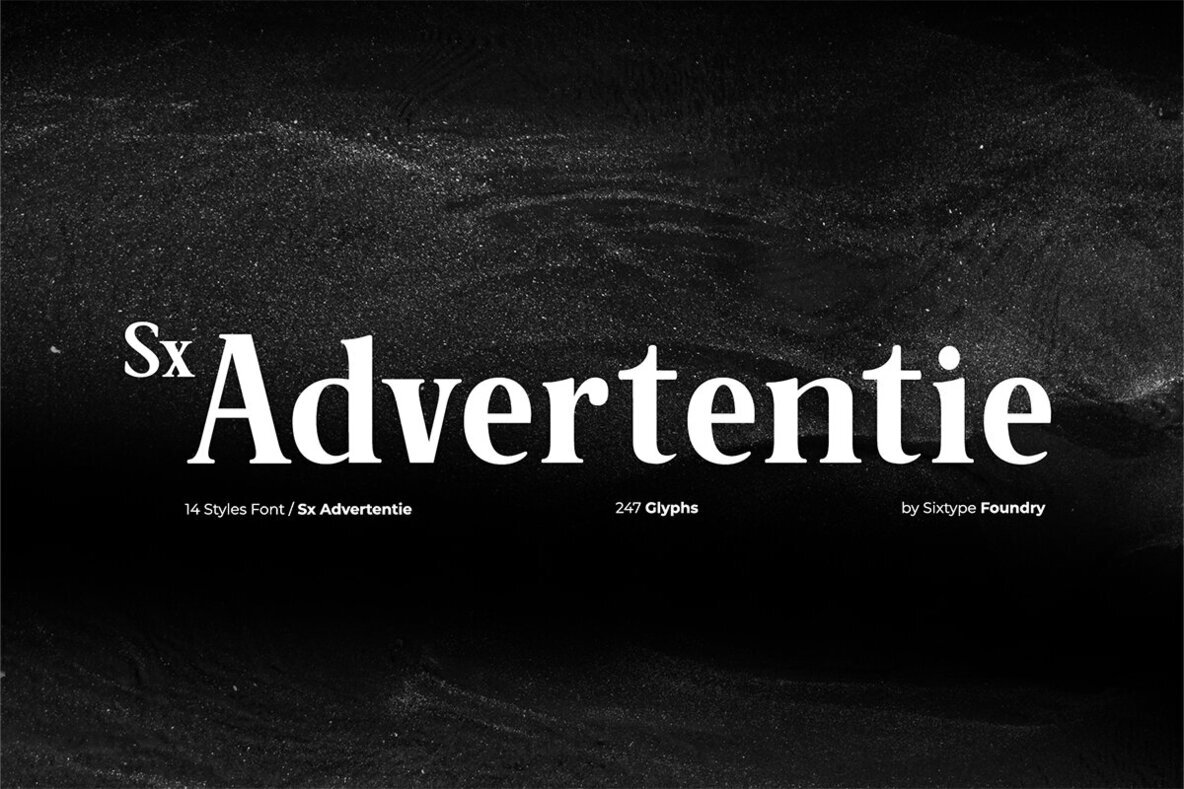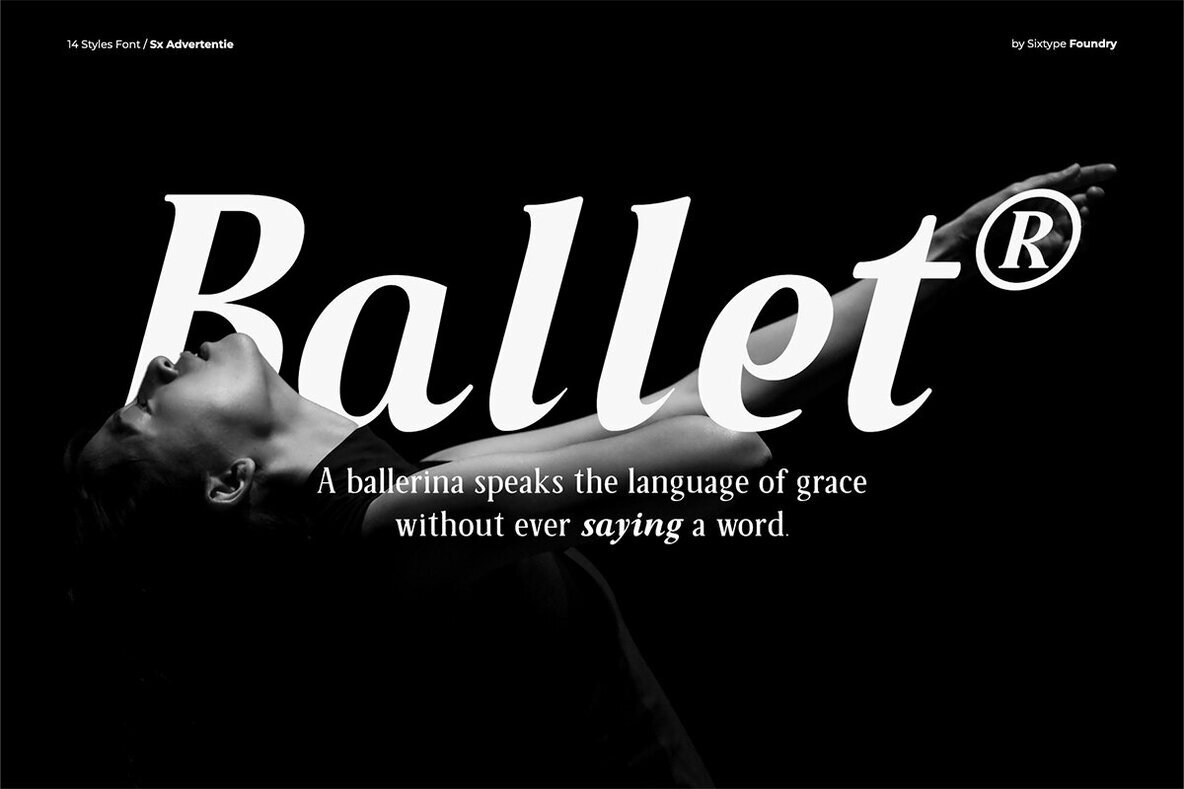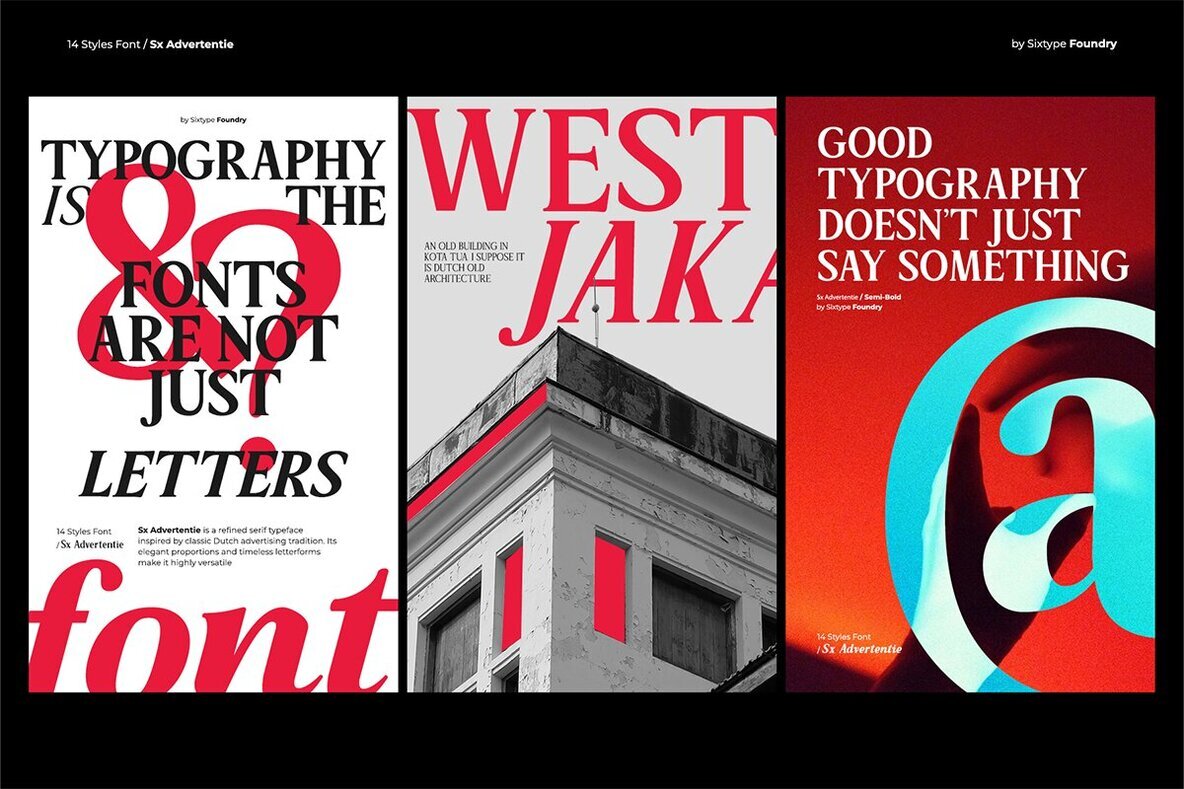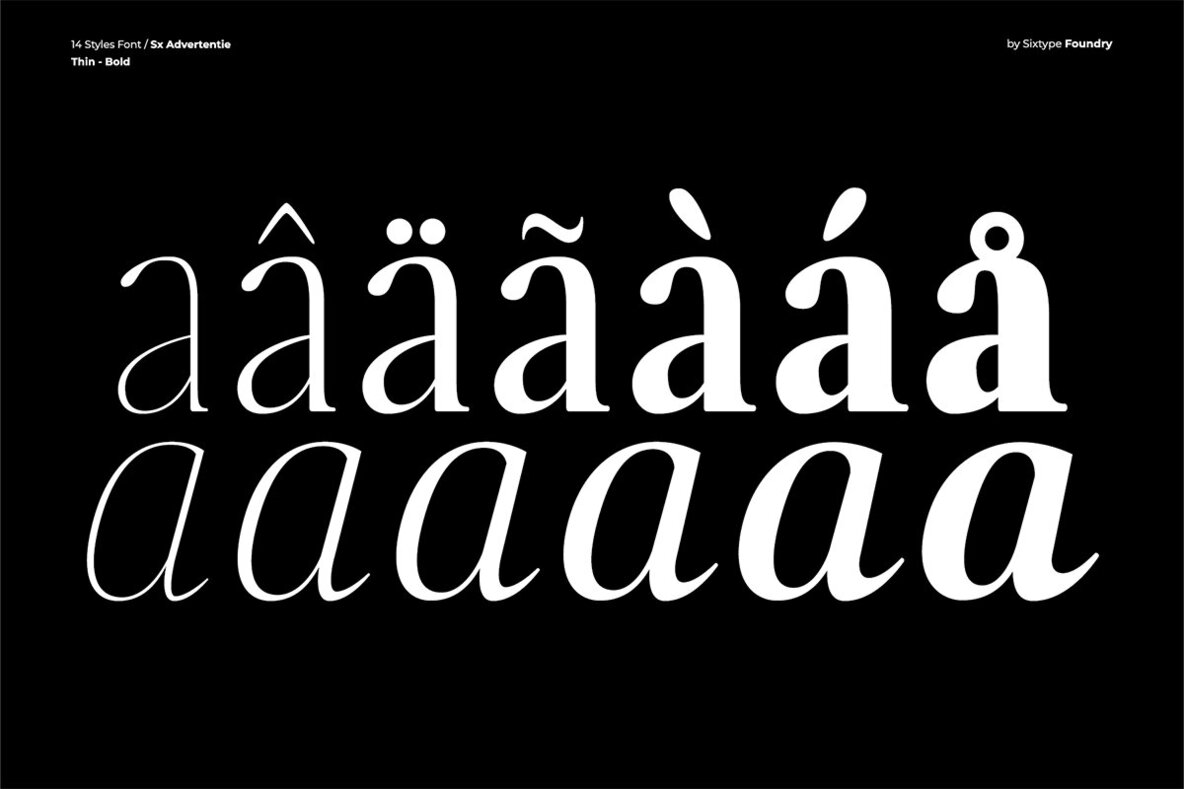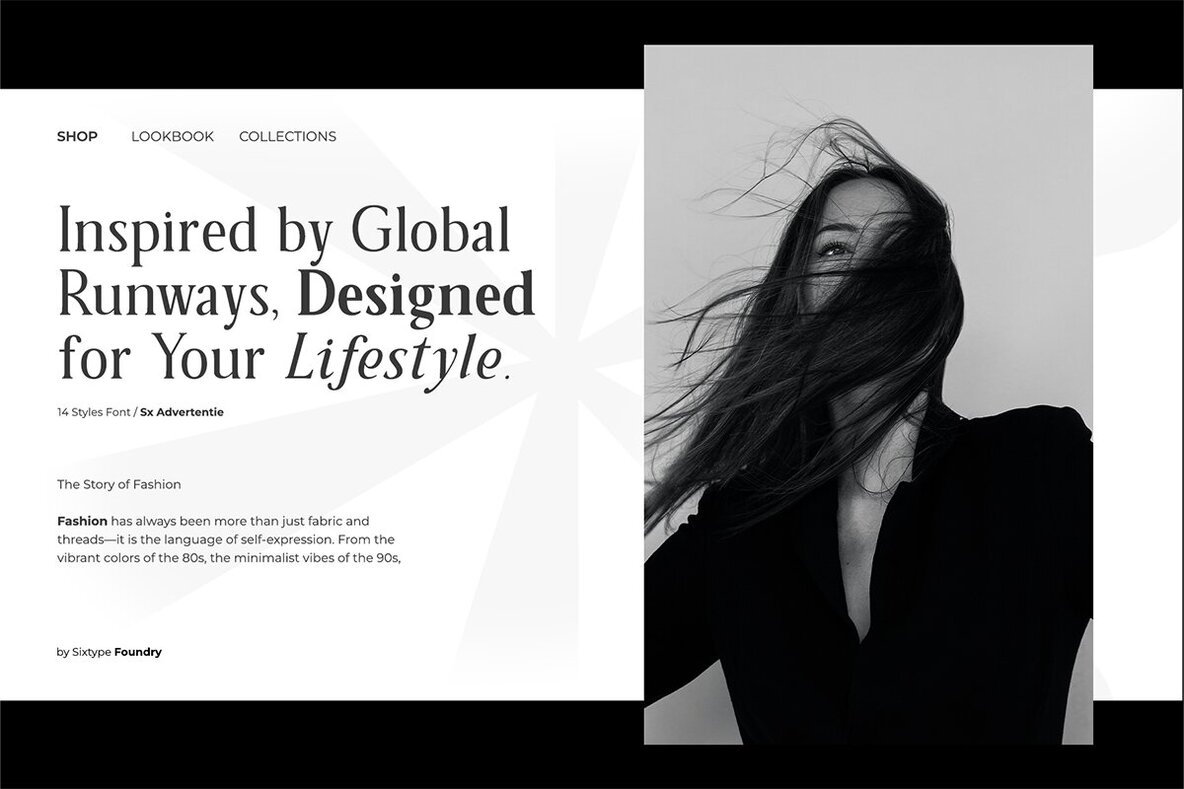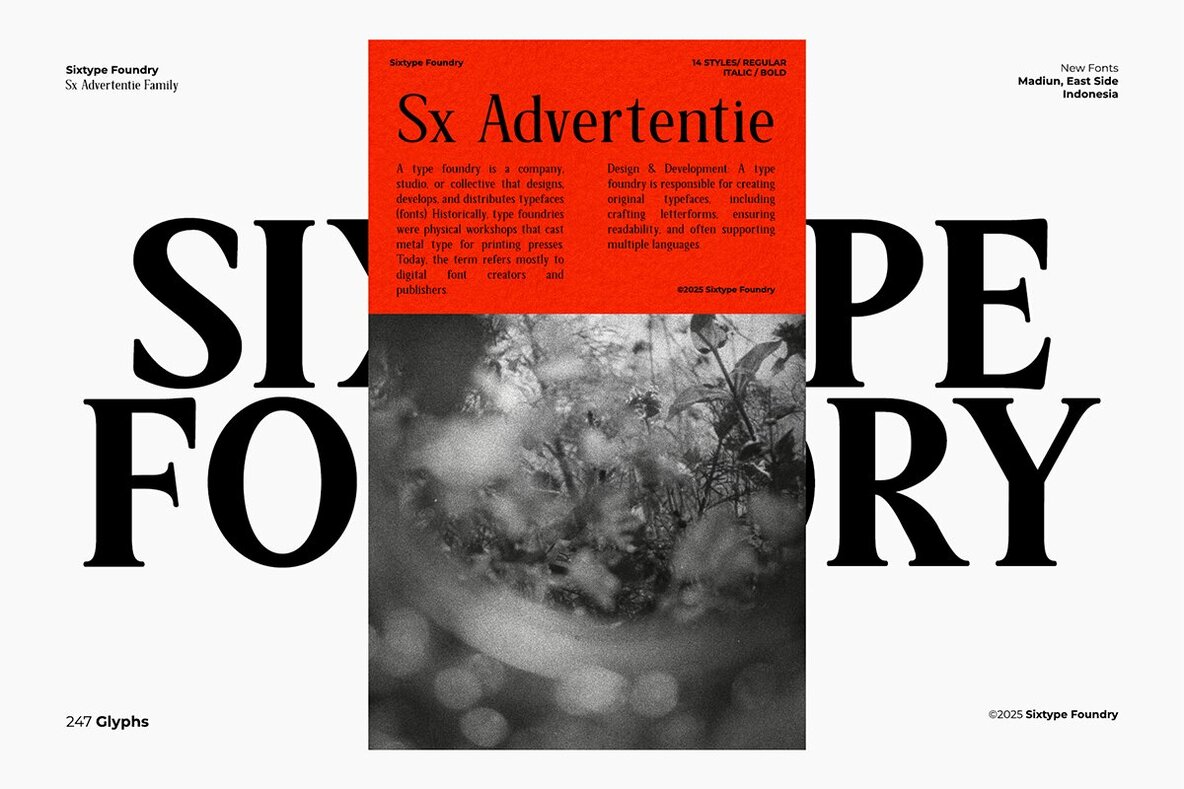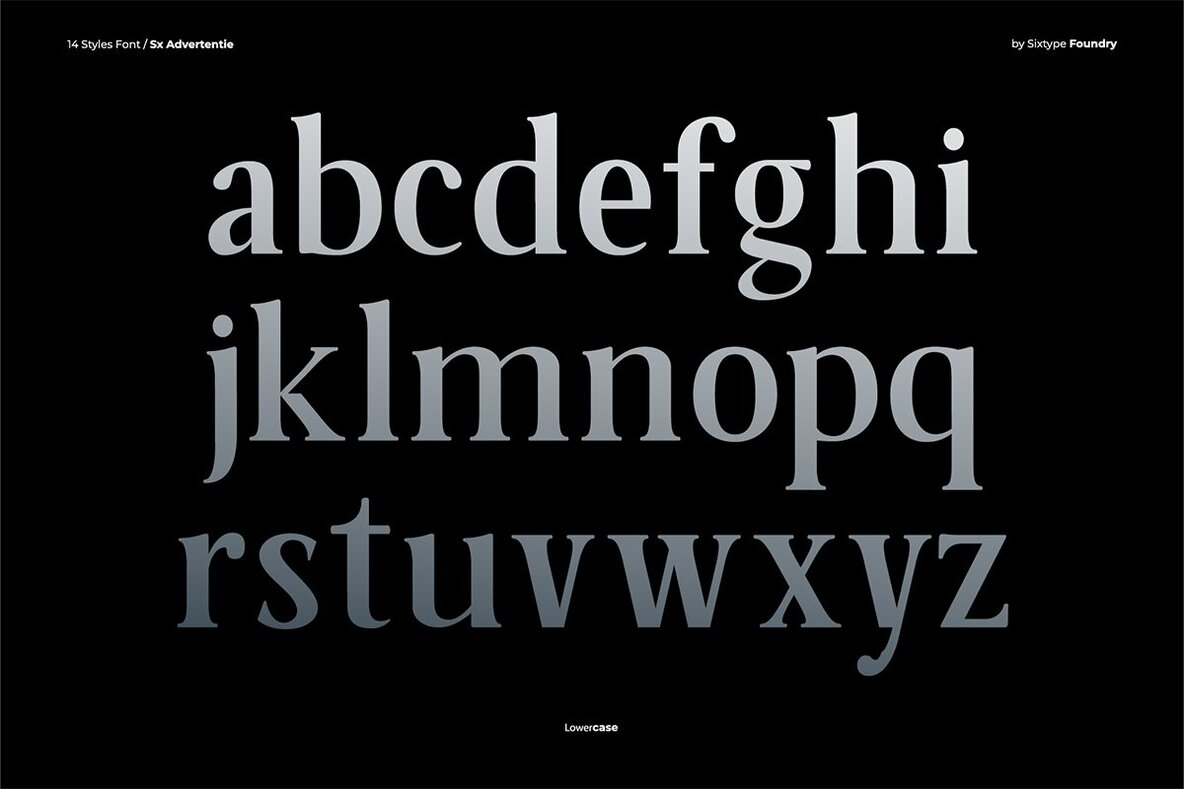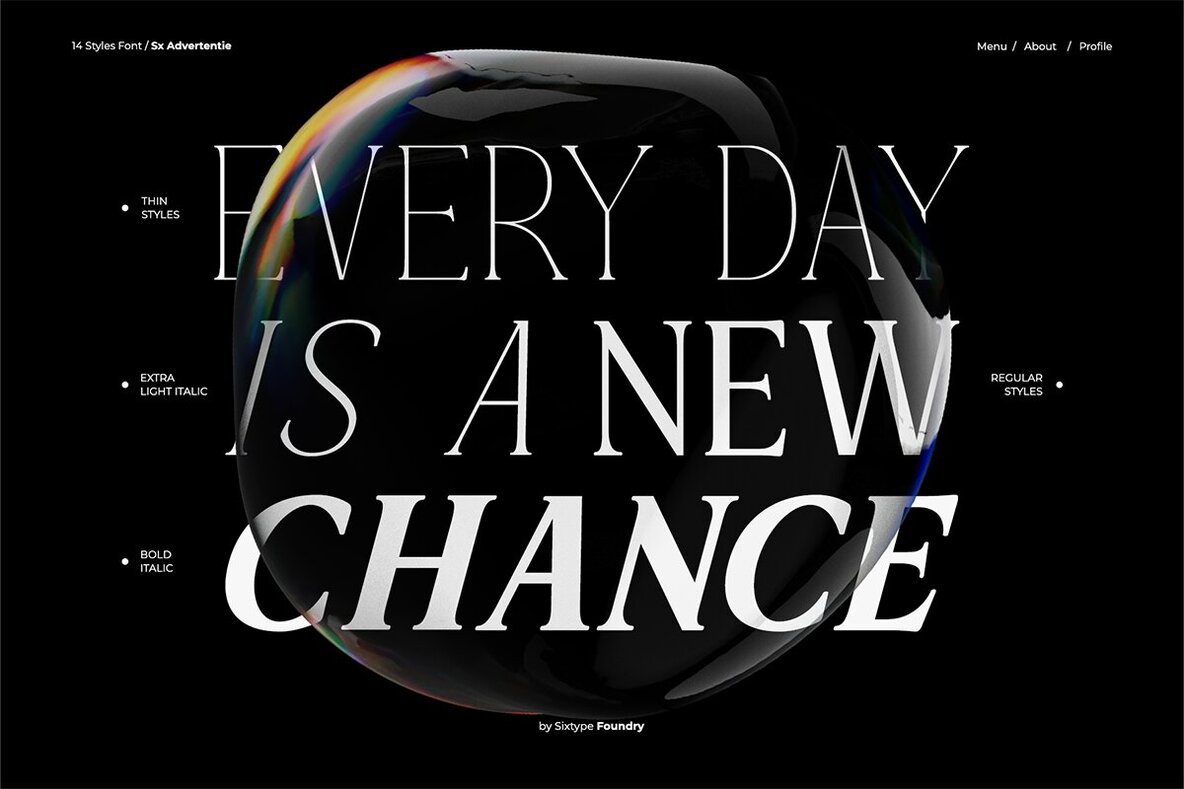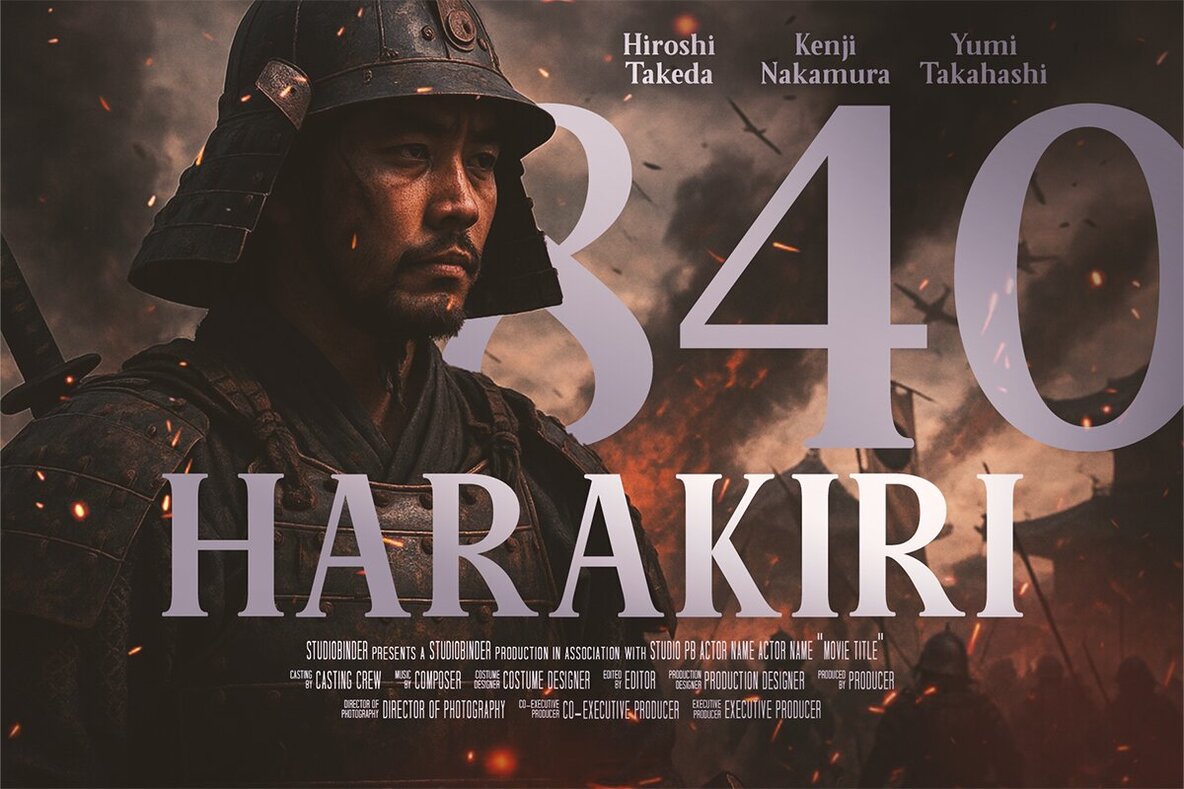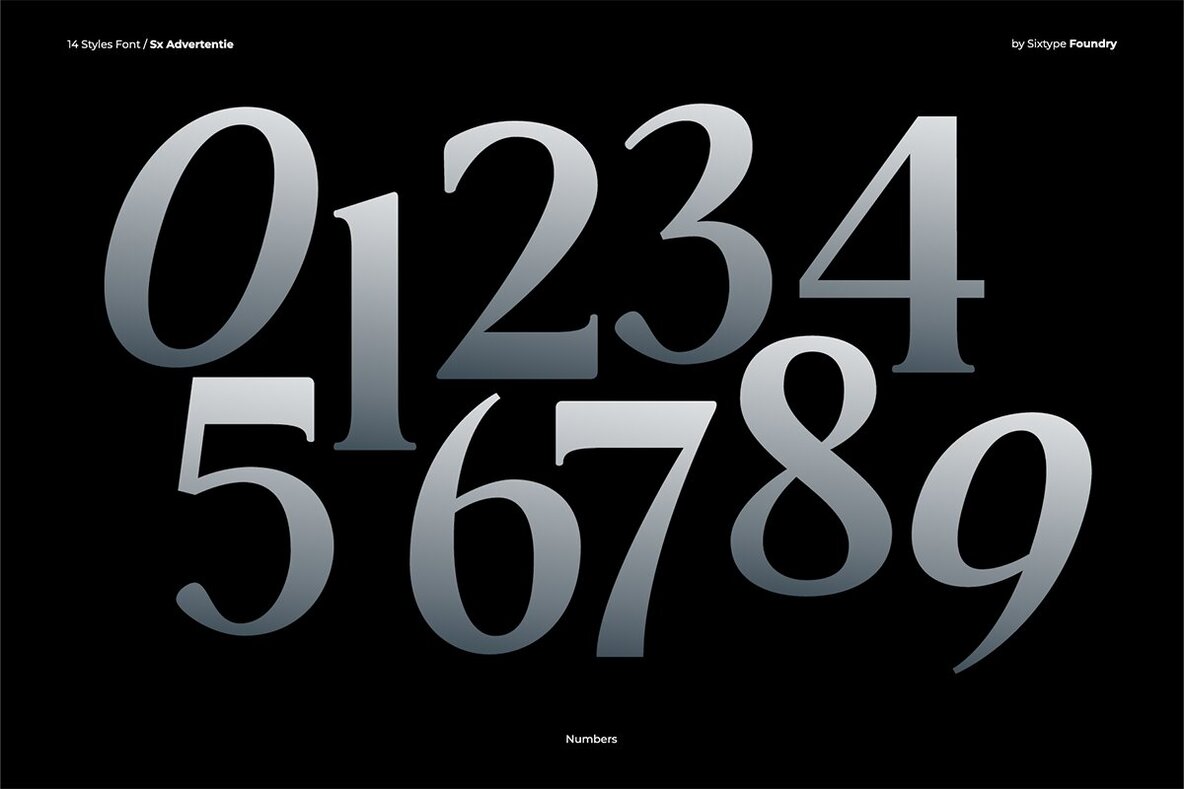
Sx Advertentie Font
Embarking on a quest for font perfection often leads one to explore the delicate equilibrium between classic allure and modern sophistication. Sx Advertentie embodies this search, offering an editorial serif inspired by Dutch advertising's illustrious traditions. Its bold elegance resonates with a refined digital age sensibility, making it a pivotal choice for graphic designers. Sx Advertentie captivates in headlines while ensuring effortless readability in body text. Its exquisite italics inject a vibrant dynamism, transforming any design they grace.Sx Advertentie: A Contemporary Editorial Serif